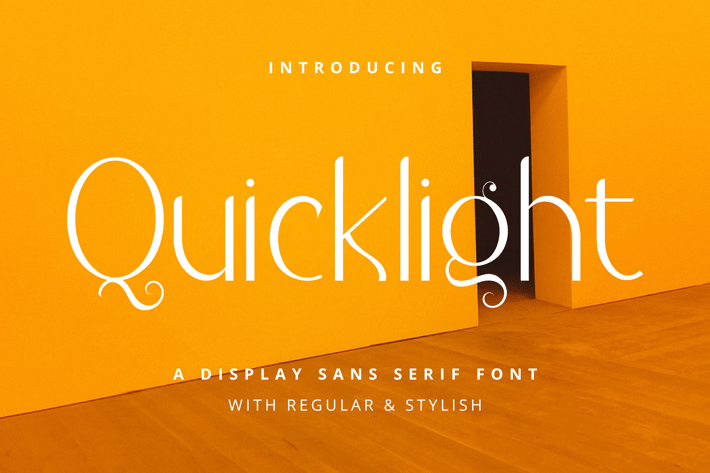
Quicklight - Advertisement Font
Quicklight is a minimal and neat sans serif font. Its versatile style makes it perfect for a variety of projects and designs. Don’t miss out on the chance to add it to your most creative ideas, and notice how it makes them stand out!